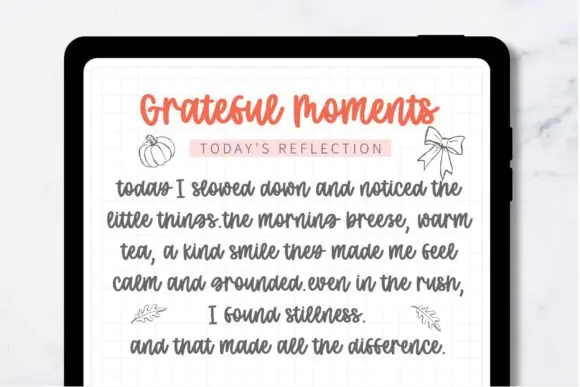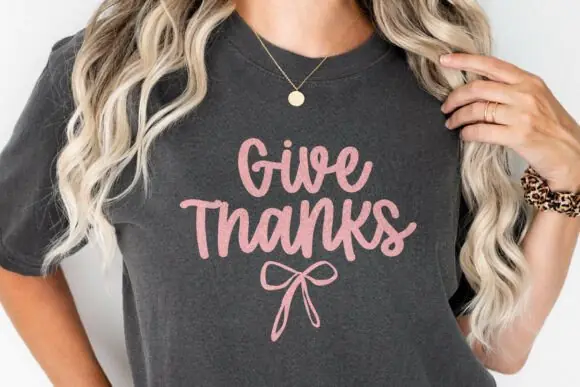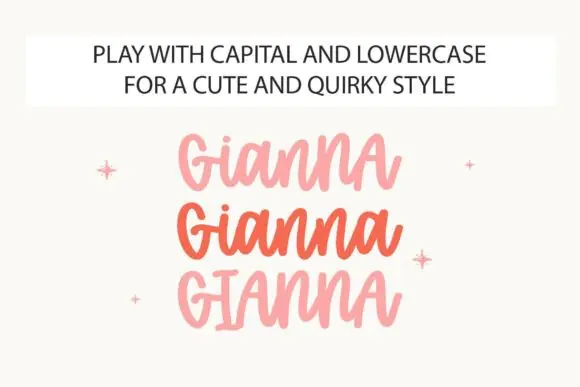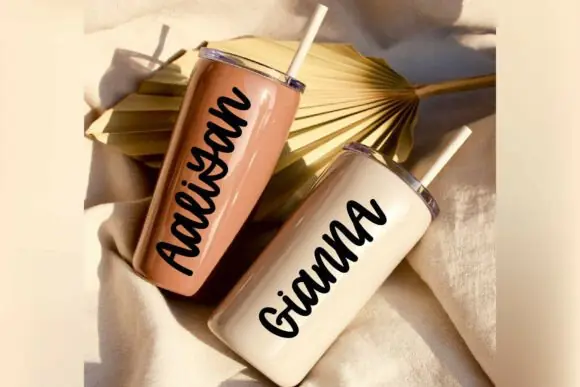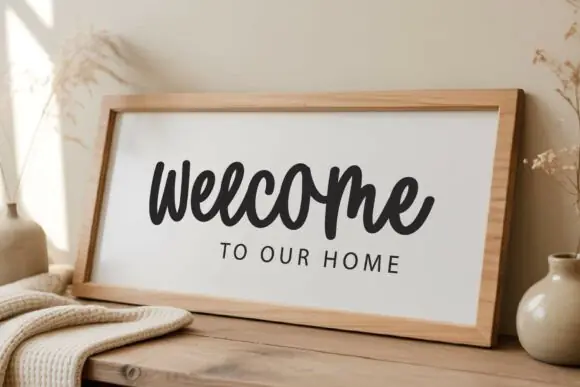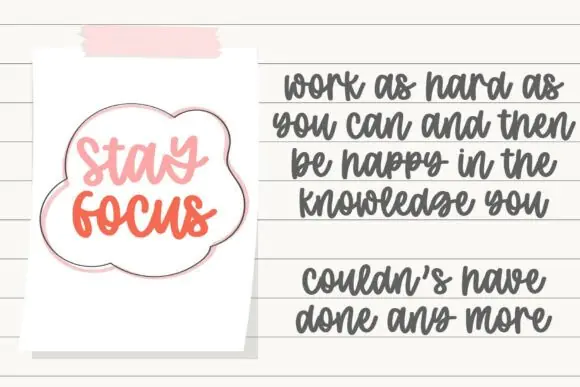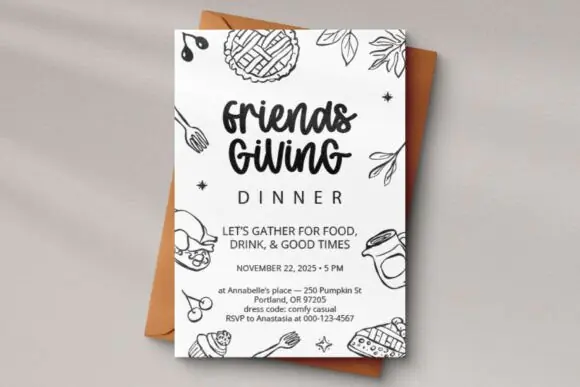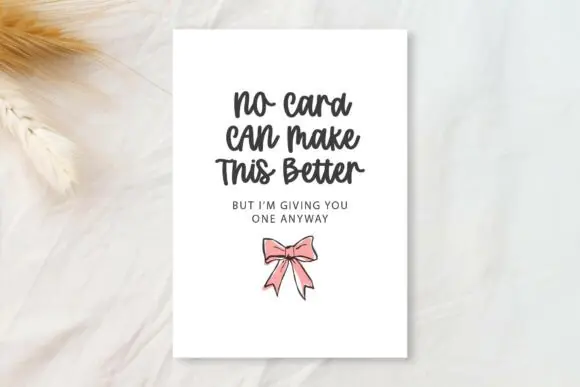
Maple Mingle Font | Bouncy Bold Playful Cursive Font for Tumblers, Farmhouse Signs, Friendsgiving Invites, Stickers, SVG & Cricut Projects
Create cozy, cute, and personality-filled designs with Maple Mingle Font, a bouncy and playful cursive font with bold rounded strokes and a fun hand-lettered style. This font beautifully mixes uppercase and lowercase letters to create a quirky, cheerful, and eye-catching look.
Maple Mingle Font is perfect for names on tumblers, farmhouse welcome signs, Friendsgiving invitations, planner pages, stickers, SVG designs, mugs, tote bags, t-shirts, seasonal cards, labels, printable wall art, and handmade craft projects. Its lively lettering style adds warmth and charm to both digital and physical products.
The thick rounded strokes help keep the font readable across print projects and cutting machine designs, making it a great choice for Cricut, Silhouette, and Glowforge users. Whether you are creating cozy fall-themed products, farmhouse décor, personalized gifts, or cute planner designs, Maple Mingle Font gives your work a friendly and handcrafted feel.
• Tumbler name designs
• Farmhouse welcome signs
• Friendsgiving invitations
• Planner pages and stickers
• SVG craft projects
• Cricut and Silhouette designs
• Glowforge projects
• T-shirts and tote bags
• Mug designs
• Labels and tags
• Seasonal greeting cards
• Printable wall art
• Fall and cozy-themed designs
• Handmade gift products
• Bouncy bold cursive style
• Cute mix of uppercase and lowercase letters
• Rounded, lively, readable strokes
• Great for print and cutting machines
• Perfect for tumblers, signs, stickers, and SVG designs
• Adds cozy hand-lettered charm to creative projects
• Suitable for Cricut, Silhouette, and Glowforge users
Maple Mingle Font is a beautiful choice for crafters, small business owners, SVG designers, and digital creators who want to create playful, cozy, and easy-to-read designs with a cheerful handwritten feel.